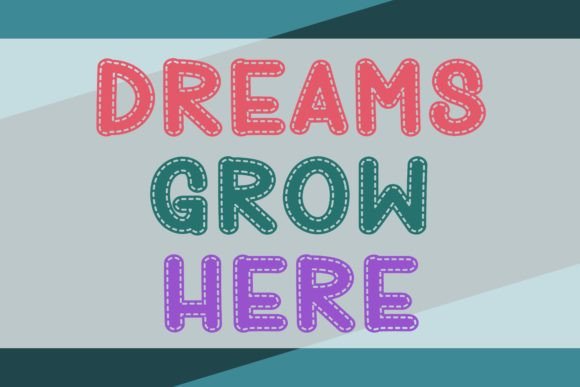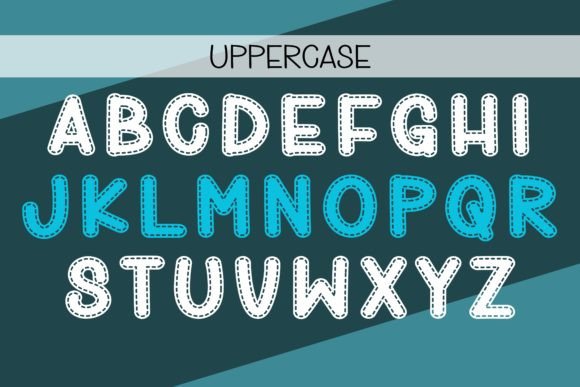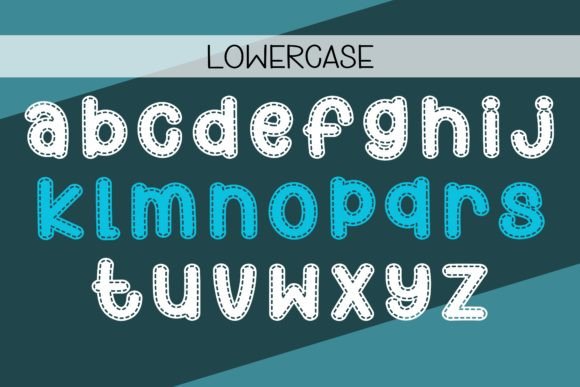
Best Stitch Font
Best Stitch is designed in a playful and adorable decorative font style. It would be awesome for your colorful child-relate projects, mom projects, weddings, back-to-school, party decorations, invitations, posters, blogs, clothing, greeting cards, social media posts, or anything that needs a friendly touch. Let’s try it and add it to your creative ideas and notice how it makes them stand out!